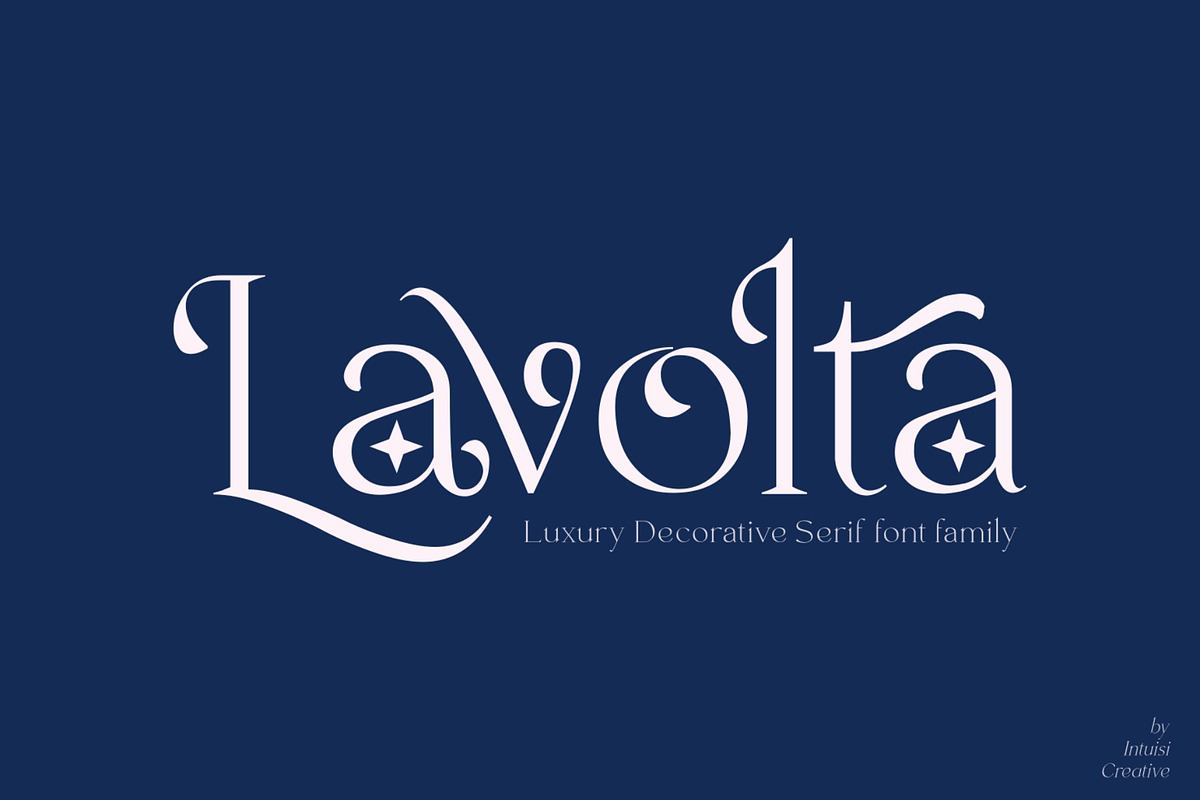
Lavolta - Decorative Font Family Free Download is a bold and expressive typeface that blends artistic flair with decorative detail. Perfect for posters, album covers, branding, packaging, and editorial design, Lavolta adds a creative and distinctive voice to your work. With its intricate shapes and dynamic character, this font family is made to stand out.
Featuring multiple styles and variations, Lavolta - Decorative Font Family Free Download offers designers flexibility and visual impact in a single package. Whether you're aiming for a retro feel, a bohemian vibe, or something completely experimental, Lavolta brings versatility and flair to the table. It's especially effective in headlines and display settings where its ornate design can truly shine.